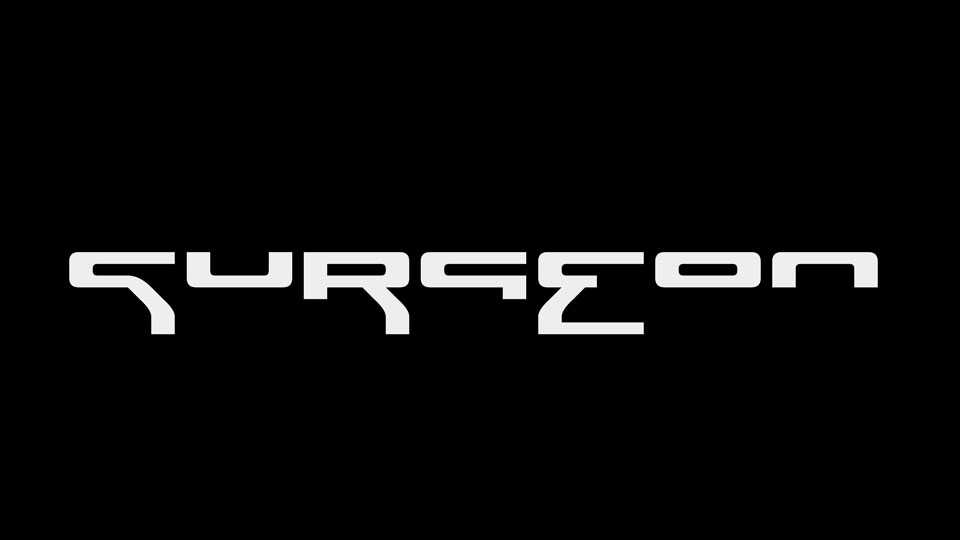
Download Surgeon font, a creative display typeface inspired by The Designers Republic’ works for the Wipeout video game. It looks great for posters, banners, movie cover, games, headlines and other futuristic and technologic projects.
Designer: Adam Rucki